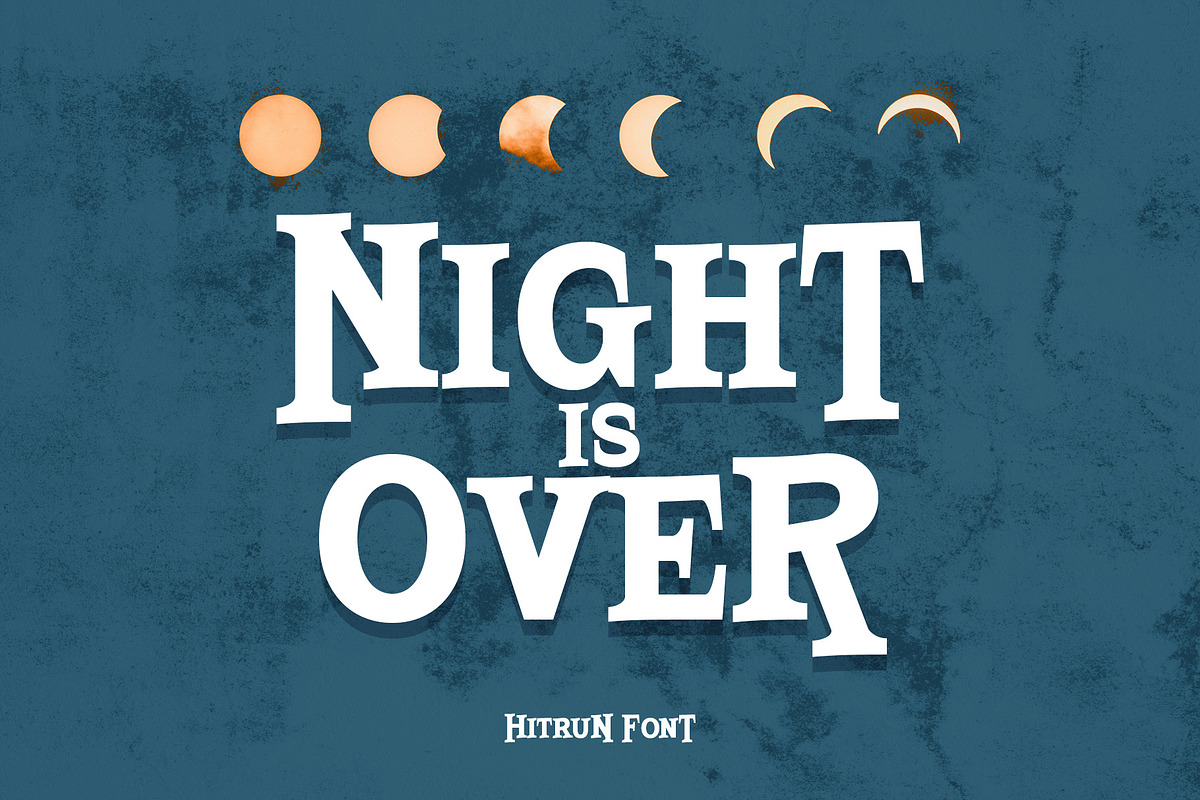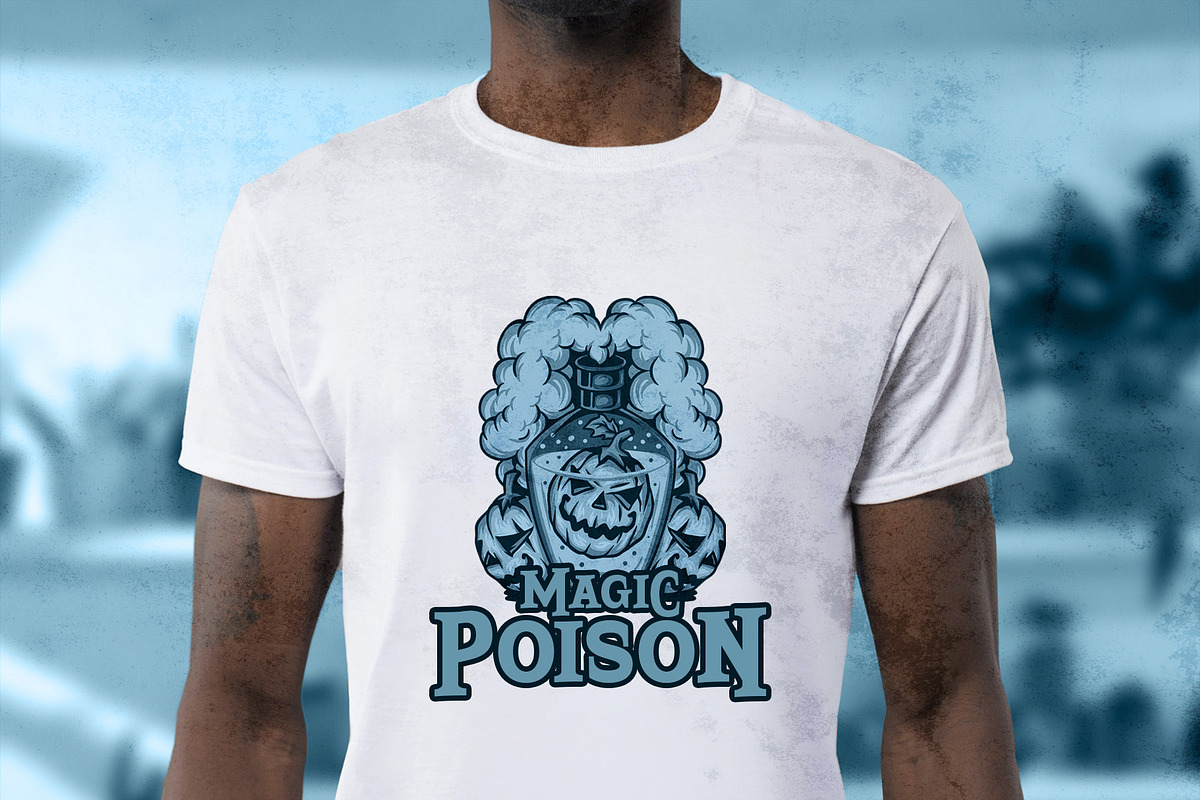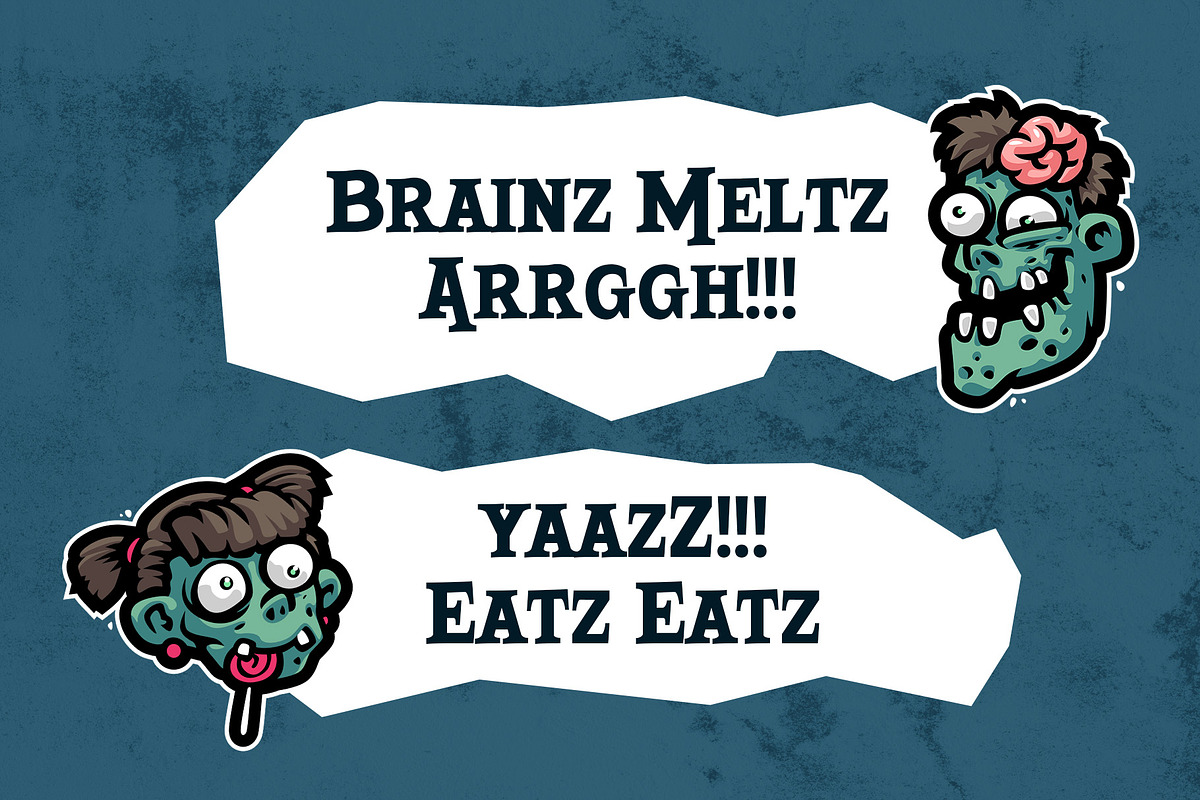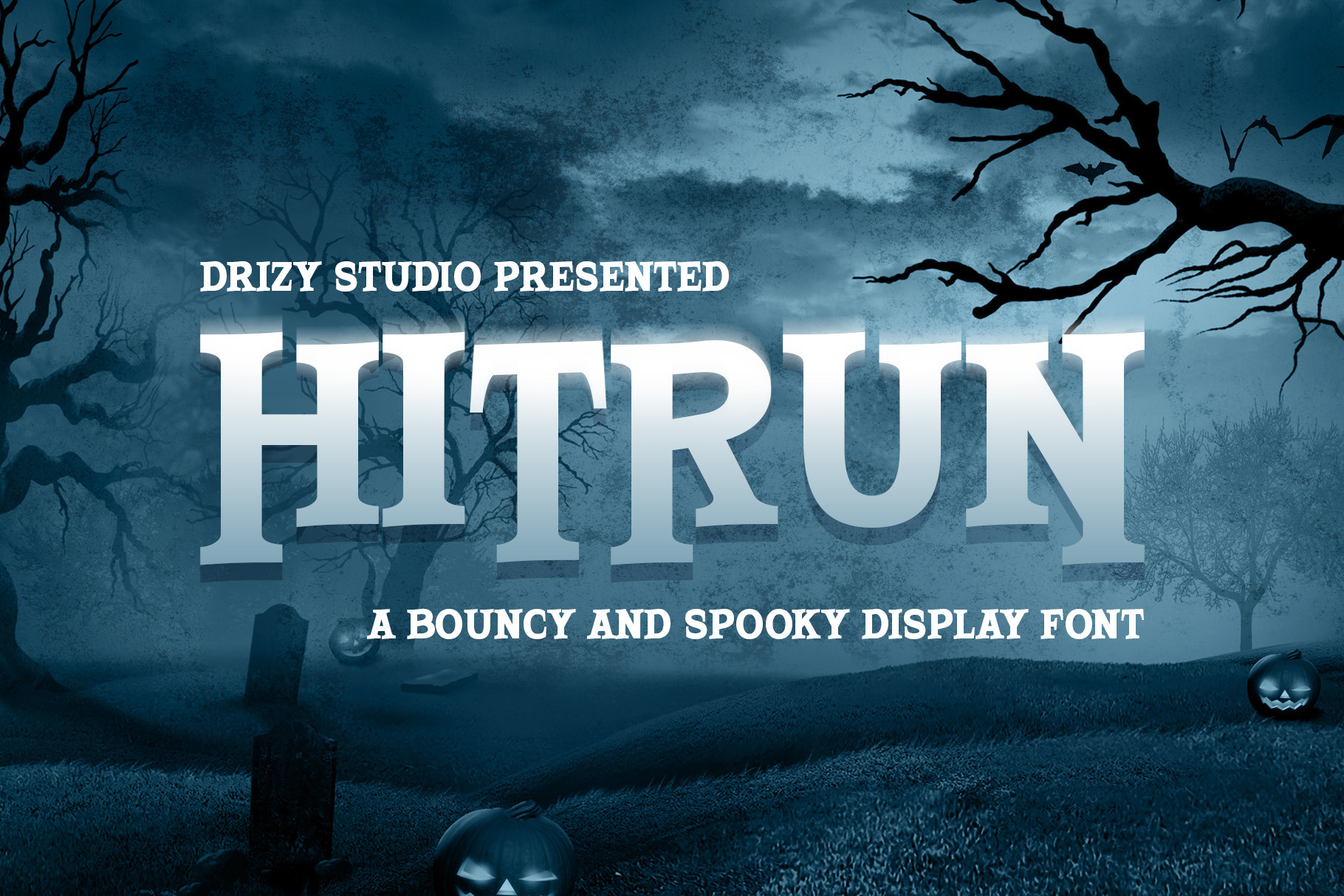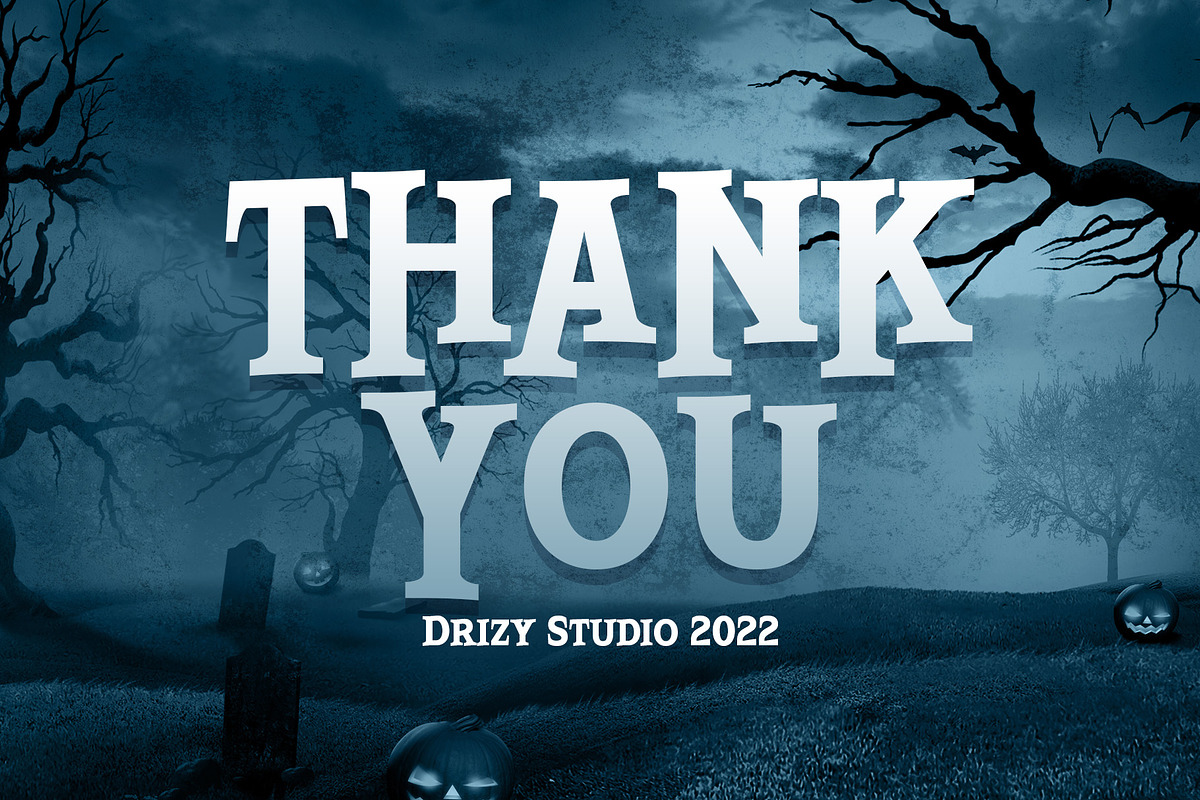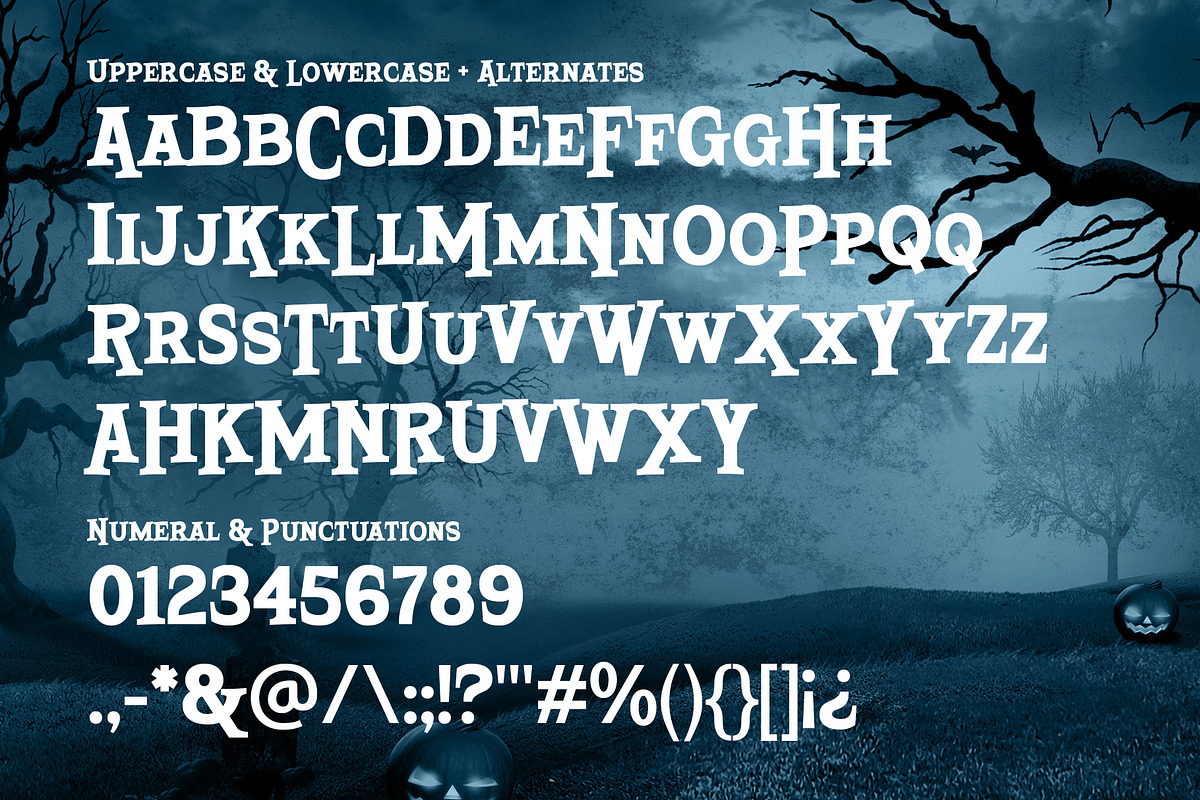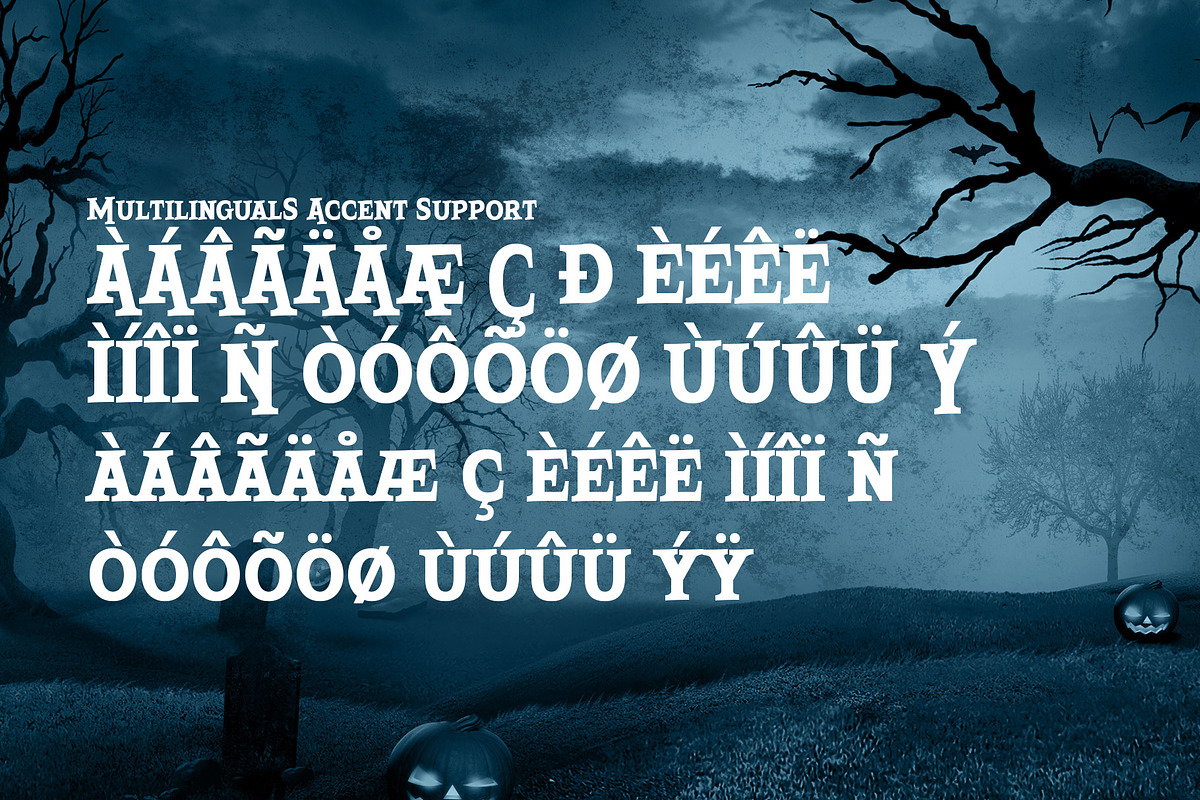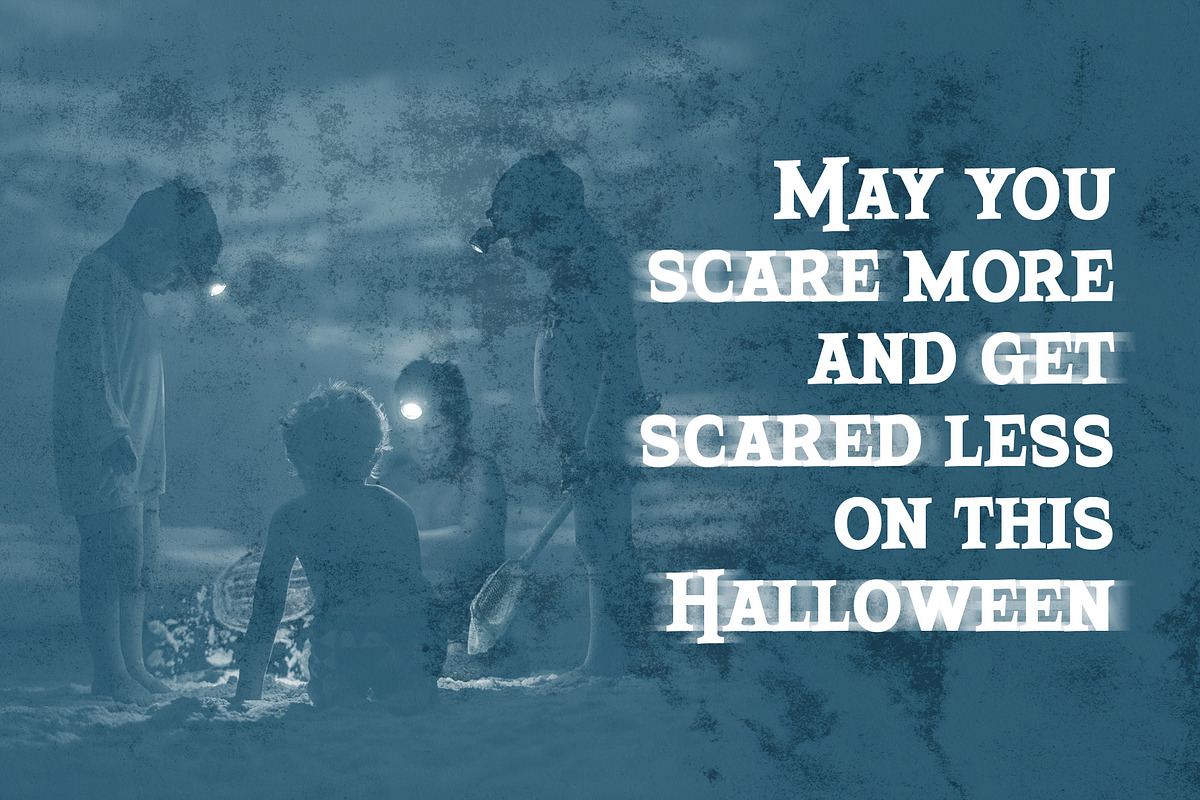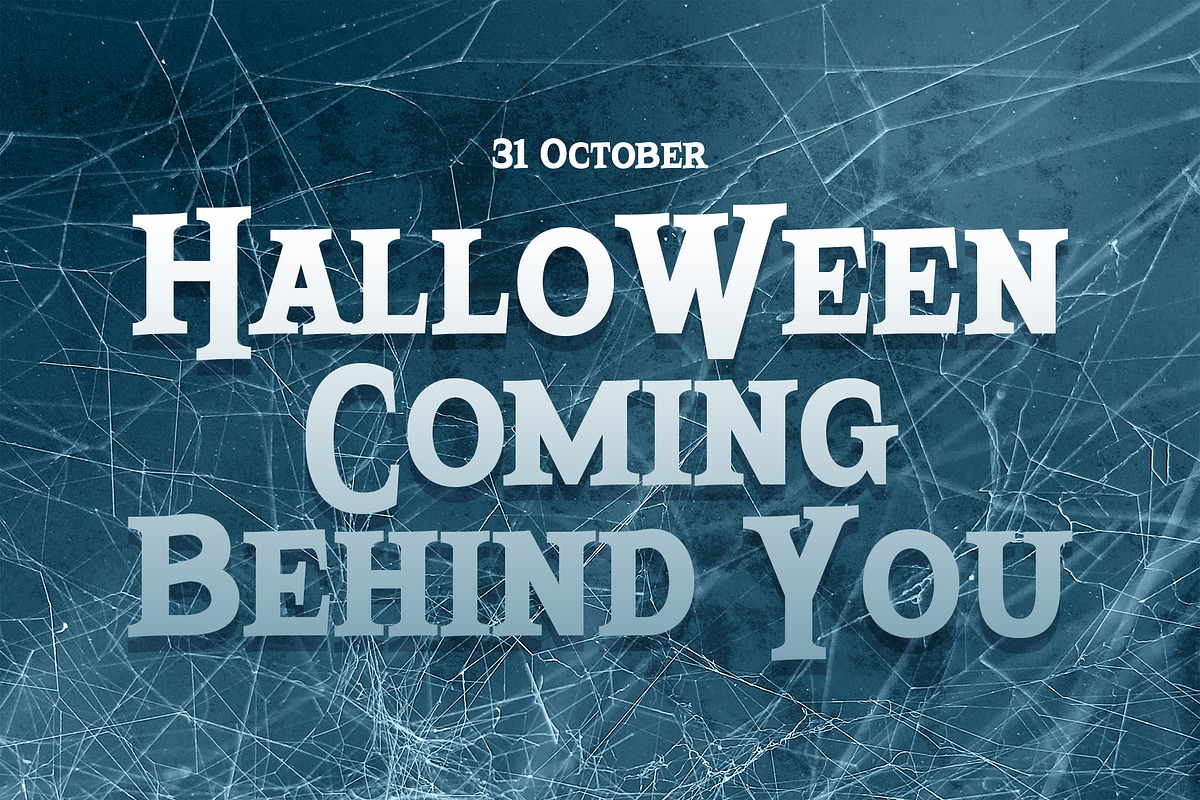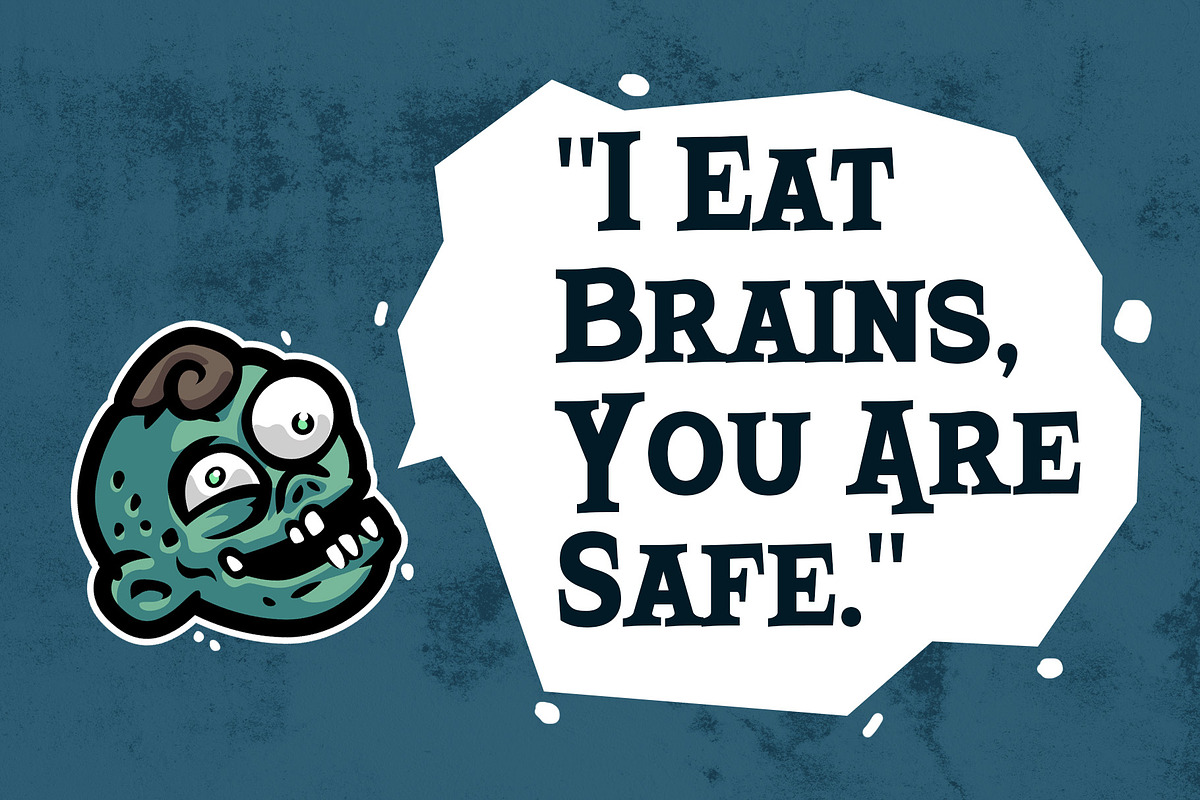
Hitrun – Bouncy Spooky Font
Hitrun is a Bouncy Spooky Font from Drizy studio. Offering all the basic styles you will need for a spooky and scary yet funny theme, like Halloween project.
Hitrun Features:
Uppercase & Lowercase Numeral & Punctuation Multilinguals & Alternates